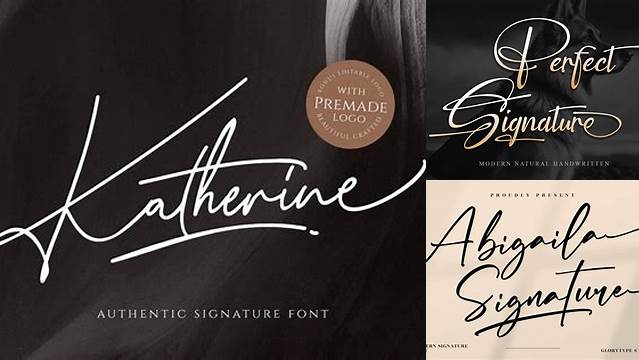
Free Signature Fonts: Your Guide To Elegant Typography
Hey there, design enthusiasts! Ever wondered how to infuse a touch of sophistication and personal flair into your creative projects? Look no further than free signature fonts. These fonts, mimicking the graceful strokes of handwriting, are an excellent way to make your work stand out. In this comprehensive guide, we'll dive deep into the world of free signature fonts, exploring their uses, how to find them, and tips for making the most of them. So, buckle up, and let's embark on this typography journey together!
What are Signature Fonts and Why Use Them?
Firstly, what exactly are signature fonts? Simply put, they are typefaces designed to replicate the look of a handwritten signature. They often feature flowing lines, unique letterforms, and a touch of personal charm that can transform any design. They add a level of personalization that can be challenging to achieve with standard fonts. From social media graphics and website headers to invitations and branding materials, signature fonts can elevate your design to an art form.
Think about it: how many times have you seen a generic font used for a logo or a greeting card? While those fonts have their place, they lack the individuality and personality that a signature font provides. A well-chosen signature font can instantly communicate elegance, authenticity, and a personal touch. They are great for creating a strong visual identity. They can evoke feelings, from a sense of luxury to a friendly, approachable vibe. This makes them a versatile tool for designers and creatives alike. Using signature fonts is an excellent way to make your content stand out. You can easily make your content more memorable and engaging. It's all about adding a human touch. It's not just about aesthetics; it's about building connections. Using signature fonts provides a way to forge meaningful connections with your audience. This is a great way to connect with people. Your brand can connect with people on a more personal level and help make your brand feel more approachable.
Moreover, the emotional impact of these fonts is undeniable. The sense of human touch that they bring can turn a simple design into something that resonates with audiences on a deeper level. This means that using a signature font can dramatically change how people see your brand. They can be used in various contexts, from creating personalized greeting cards to designing luxury brand logos. There is a signature font for every project. If you need to choose the right font for your project, you can achieve incredible results with it. There is a great range of fonts that cater to different styles and purposes. You can find fonts that range from bold and dramatic to delicate and understated.
Where to Find Free Signature Fonts?
Alright, now that we've discussed the power of free signature fonts, the next question is: where do you find them? Fortunately, the internet is a treasure trove of resources for free fonts. However, with so many options available, it's essential to know where to look and what to look for. Here's a breakdown of some top-notch websites where you can unearth these typographic gems.
Behance and Dribbble
These platforms are not dedicated font repositories, but they are excellent places to discover fonts. Designers often showcase their work and provide links to download their fonts for free. It's a great way to find unique and creative signature fonts that you might not find elsewhere.
Other Websites
There are many other websites that offer free fonts, such as 1001 Free Fonts and FontSpace. However, always double-check the licensing information to ensure that you can use the font for your intended purpose. Pay attention to the terms of use for each font to prevent any legal issues. Read and understand the licensing of the font before you download it.
Key Considerations When Choosing a Signature Font
So, you've found some beautiful signature fonts – now what? Choosing the right one is crucial. Here are some key considerations to keep in mind as you decide.
Legibility
First and foremost, the font should be legible. Even the most beautiful font is useless if people cannot read it. Ensure that the font remains readable at various sizes. Test it out on the platform you intend to use it on. You should test it out on your website or on your social media graphics. Check how it looks in different contexts. Test the font on various backgrounds.
Personality and Style
Does the font match the overall tone and style of your project? A playful signature font might be perfect for a children's brand, while a more elegant one is ideal for a luxury brand. Consider the emotions and messages that the font conveys. Consider how you want your audience to feel when they see your design. Think about the personality and style. Consider the personality of your project and your personal style. Make sure your font and the project's vibe align.
License and Usage Rights
Always check the font's license. Some fonts are free for personal use but require a commercial license if you plan to use them in a business project. Understand the licensing. If the license is a commercial one, be sure to understand it. Make sure you understand the fine print of the license. This will protect you and your project from any potential legal troubles.
Kerning and Spacing
Pay attention to the kerning (the spacing between individual letters) and the overall spacing of the font. Poor kerning can make the font difficult to read. Make sure the letters look balanced and visually appealing. Ensure that the font looks good at different sizes. Check how the font looks in different scenarios.
File Formats
Consider the file format. The most common font formats are TTF (TrueType Font) and OTF (OpenType Font). Most design software and operating systems support both formats, but it is good to know which one to use. Make sure your software supports the format you are using.
Tips for Using Signature Fonts Effectively
Alright, now that you've chosen the perfect font, here are some pro tips for using signature fonts effectively.
Use Sparingly
Signature fonts are meant to add a touch of elegance and personality, not overwhelm your design. Use them sparingly, typically for headlines, short phrases, or your brand name. Don't overuse them; moderation is key. Use signature fonts to make certain phrases or aspects of your content stand out.
Pair with Complementary Fonts
Pair your signature font with a clean, readable font for the body text. This creates a balance between personality and readability. The contrast between the two fonts enhances the visual appeal. The complementary font should be easy to read. It should also match the overall style of your project.
Consider Color and Background
Choose a color and background that complements your signature font. Ensure that the font is readable against the chosen background. Experiment with different colors and backgrounds to create a visual appeal.
Test on Different Platforms
Always test your design on different platforms and devices to ensure that the font displays correctly. Make sure everything looks great on all platforms. Make sure it renders correctly across all platforms. This ensures that your design is always visually appealing.
Customize and Modify (If Allowed)
If the license allows, consider customizing your font to suit your needs. Modify the font to meet your specific requirements. This adds a unique touch to your design. Customize the font, such as adjusting the size or color of the font. This adds a personal touch to your project.
Conclusion: Elevate Your Design with Free Signature Fonts
There you have it, guys! Free signature fonts can transform your designs. They can add a personal touch. By following this guide, you'll be well on your way to discovering the perfect fonts. You can use them to create designs that impress and connect. So go ahead, experiment, and let your creativity flow. Now go out there and start designing. You got this!